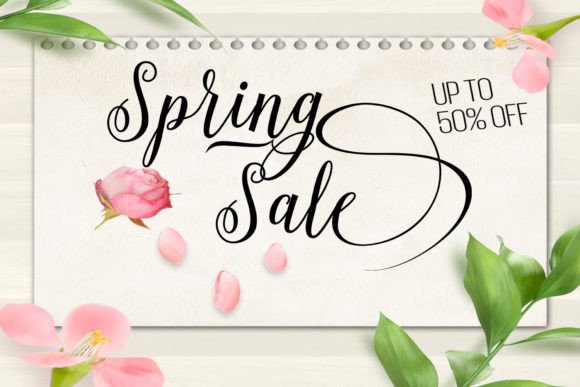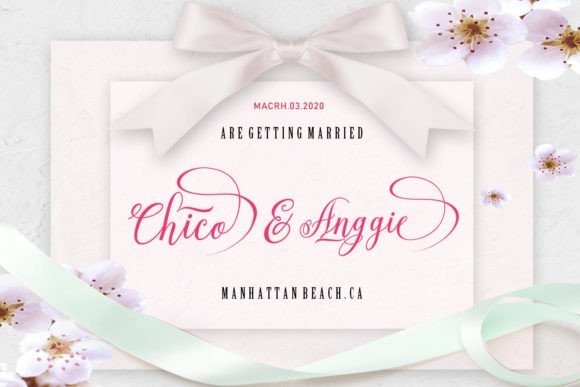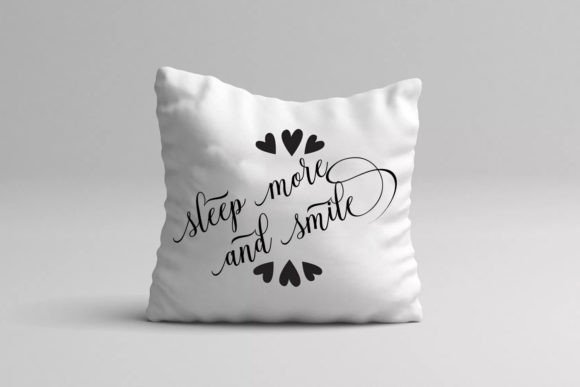
Introduction to Herochin Font
Herochin is a new modern script font with an irregular baseline.
With its trendy and feminine style, Herochin looks lovely on wedding invitations, thank you cards, quotes, greeting cards, logos, business cards, and more Perfect for using in ink or watercolor.
Key Features of Herochin Font